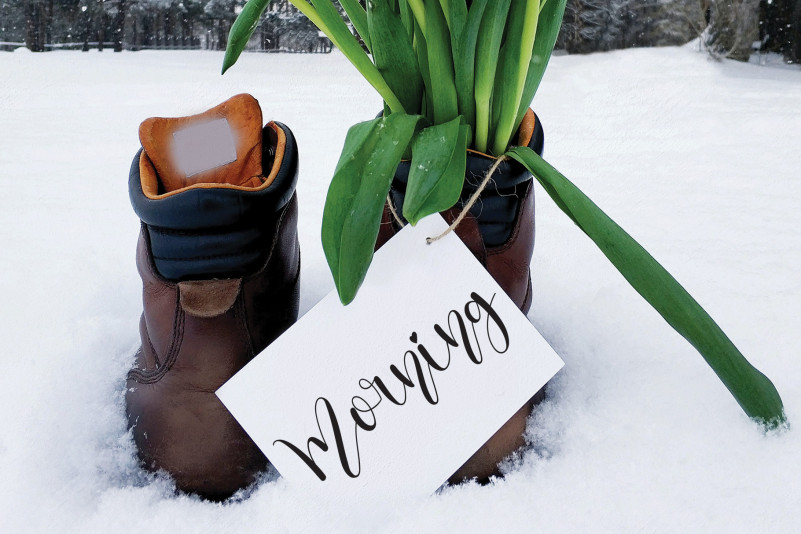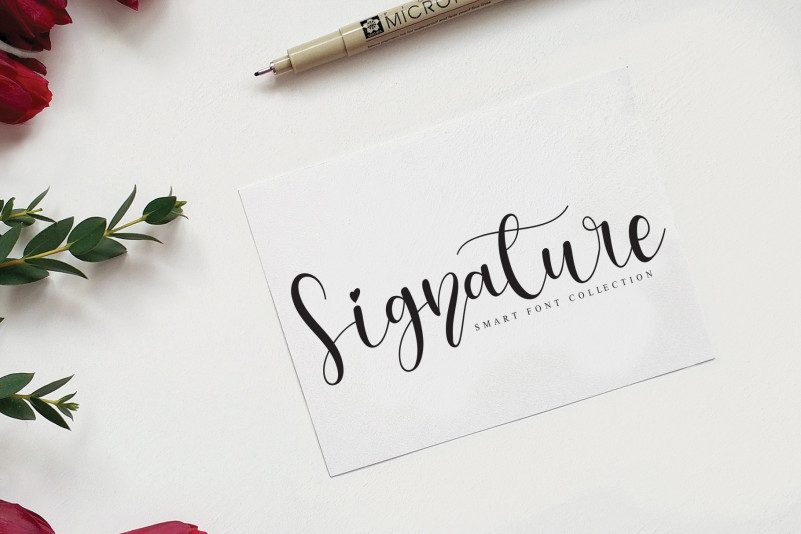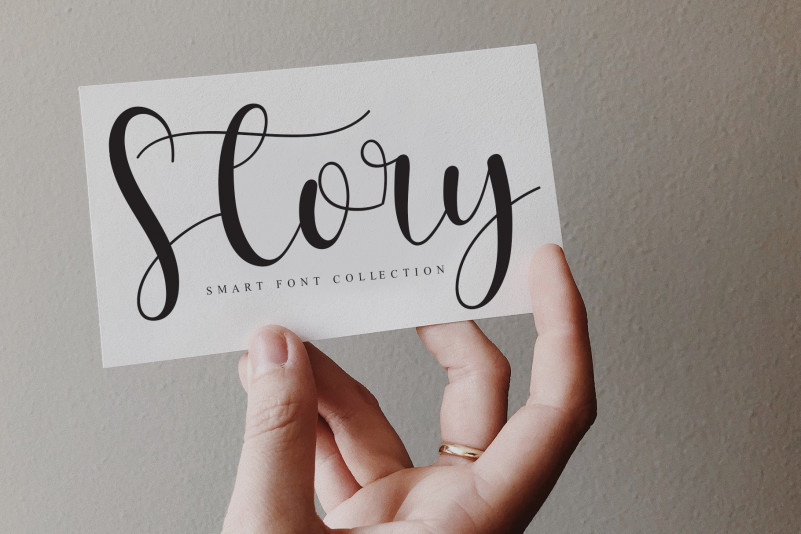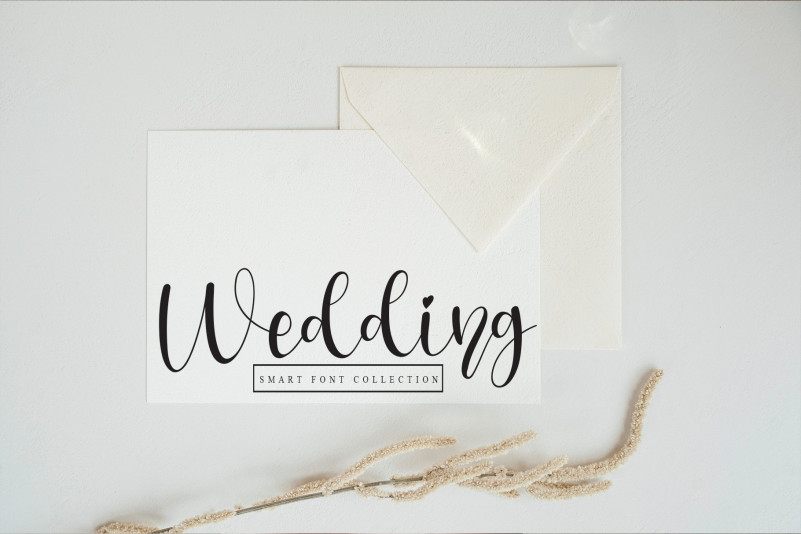
Anything Font
Anything Calligraphy Font
This is a chic and whimsical handwritten font. It has a modern and unique style and it will undoubtedly immerse your designs into a magical world.
the latest style letters are perfect for wall displays, wedding invitations, social media post logos, advertisements, product packaging, product designs, labels, photography, watermarks, invitations, stationery, and any project that requires taste handwriting.